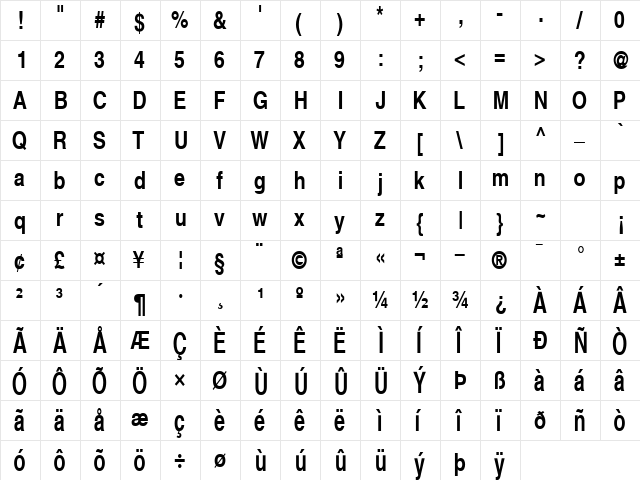
ContextUltraCondSSK Bold Font Preview
Design Context for ContextUltraCondSSK Typeface
ContextUltraCondSSK takes a measured approach to typography — its balanced proportions and neutral character make it a reliable workhorse for both digital and print work. Its bold stroke weight gives it real presence on the page. Its narrow stance lets it pack a punch even in space-constrained designs.